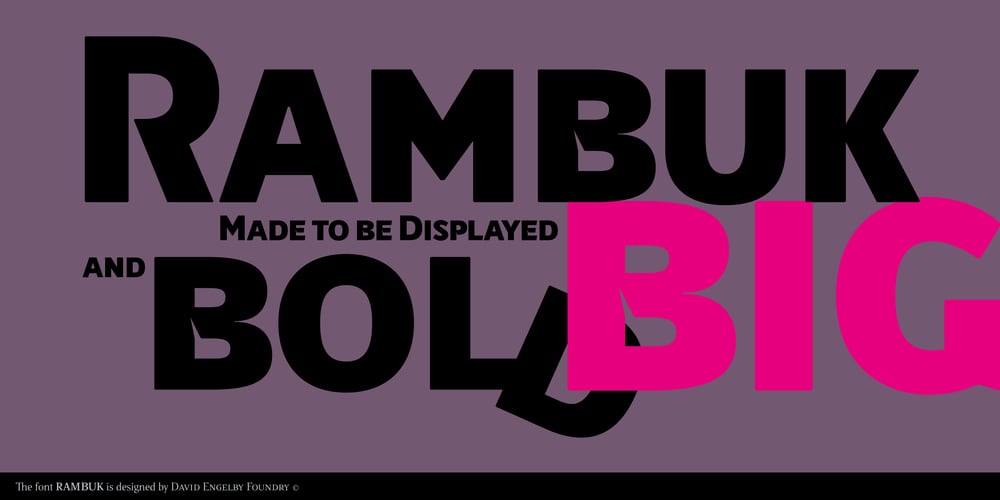
Rambuk Font Family was designed by David Engelby and published by David Engelby Foundry. Rambuk contains 3 styles and family package options. Here comes Rambuk! (Well … it’s Danish for rambuck)Rambuk is not a silent font! It’s big and noisy!The font is designed to be used in magazines, as an expressive poster font, for book covers, logotypes and much more! This font is bold, and it fits your style!The font is also handy when it comes to having big letters to fill with art or pictures.Rambuk comes with specific numerals for its small and big letter as well as carefully designed superior and inferior numerals.Make your design count — knock in some doors!